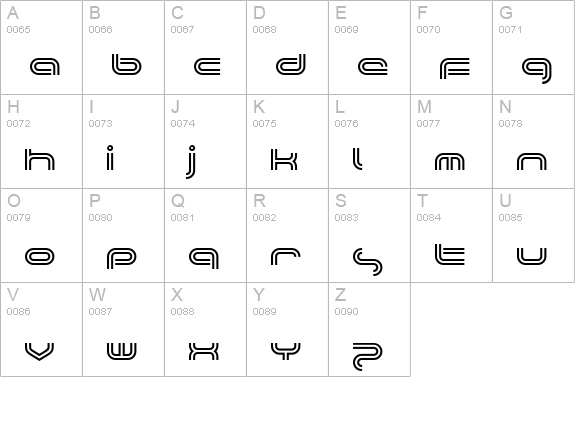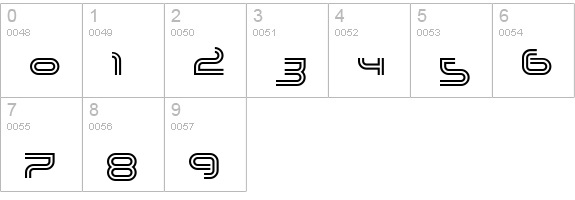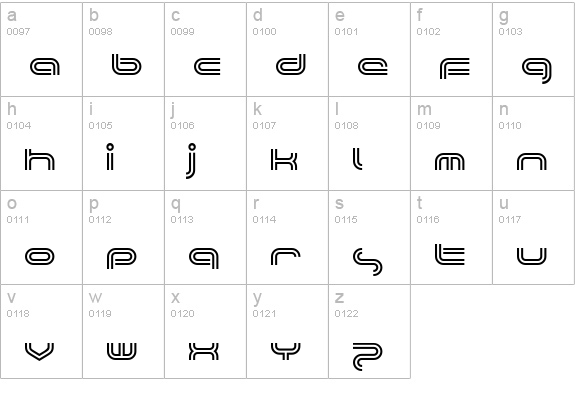
Planet TriColore Font Details
Introducing the captivating and versatile Planet TriColore font, a harmonious blend of elegance and modernity that is sure to elevate any design project. With its exquisite letterforms and impeccable attention to detail, this font exudes sophistication and refinement. Planet TriColore font boasts a unique tricolor effect, creating a stunning visual impact that effortlessly catches the eye. Its seamless integration of three vibrant colors adds depth and dimension to each character, making it stand out from the crowd and leaving a lasting impression. This font's versatility knows no bounds, as it effortlessly adapts to a wide range of design applications. Whether you're crafting a logo, designing a website, or creating eye-catching headlines, Planet TriColore font is the perfect choice to add a touch of elegance and originality to your project. But what makes Planet TriColore font truly remarkable is that it is freely available for download at FontsMarket.com. Yes, you read that right! This remarkable font can be yours at absolutely no cost, allowing you to unleash your creativity without any limitations. So why wait? Embrace the beauty and versatility of Planet TriColore font today and elevate your designs to new heights. Download it for free at FontsMarket.com and discover the endless possibilities that await you.